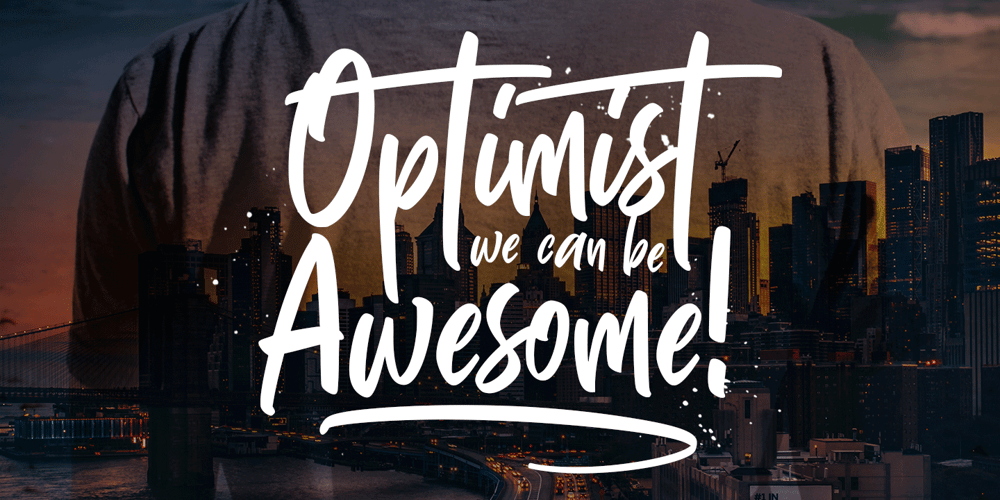
Shakehand Brothers Font Family was designed by Ahmad Ramzi Fahruddin and published by Arterfak Project. Shakehand Brothers contains 1 styles and family package options. Introducing “Shakehand Brothers”! A playful handwritten font. Created with so much fun and solid brush. This font offers a super cool typographic design for your project because the letterform is so natural, and unique.Shakehand Brothers font is so handy to use with lots of alternate characters that you can mix and match to get a perfect combination. Also with swashes, multilingual support, and custom ligatures that will surprise you while typing the letters.Suitable for many project needs and many themes, you can use for quotes, headlines, titles, motion graphics, posters, flyers, decals, apparel, and more!Here’s what you’ll get : Uppercase Lowercase Numbers Punctuation Stylistic alternates Stylistic set Ligatures Accented characters Swashes PUA Encoded This font is can’t wait to have fun with you. So, happy designing!